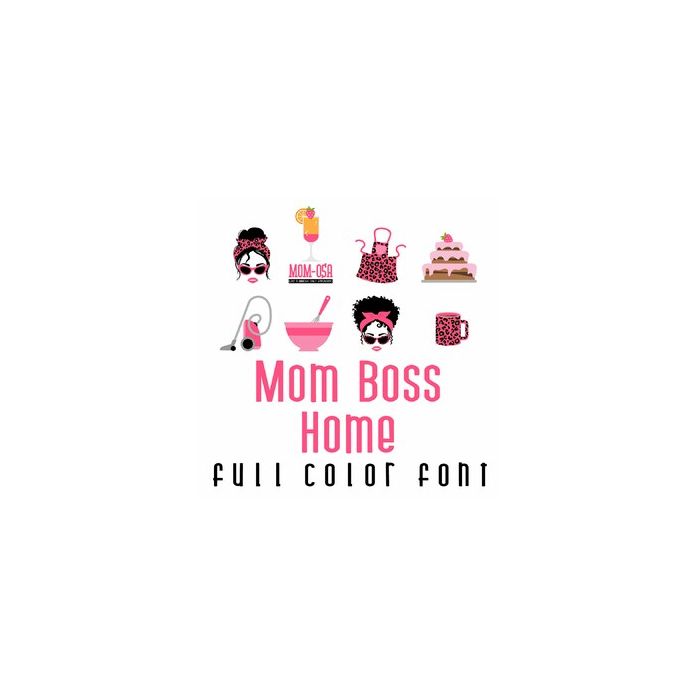
This fun full color font features images and phrases perfect for the stay at home mom! Use this doodlebat font for crafts, gifts, decor, scrap book pages, planners stickers and more!